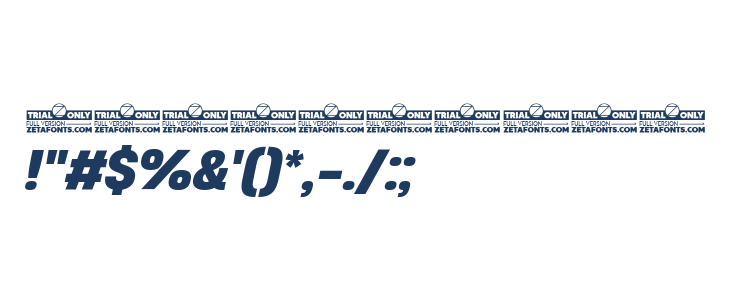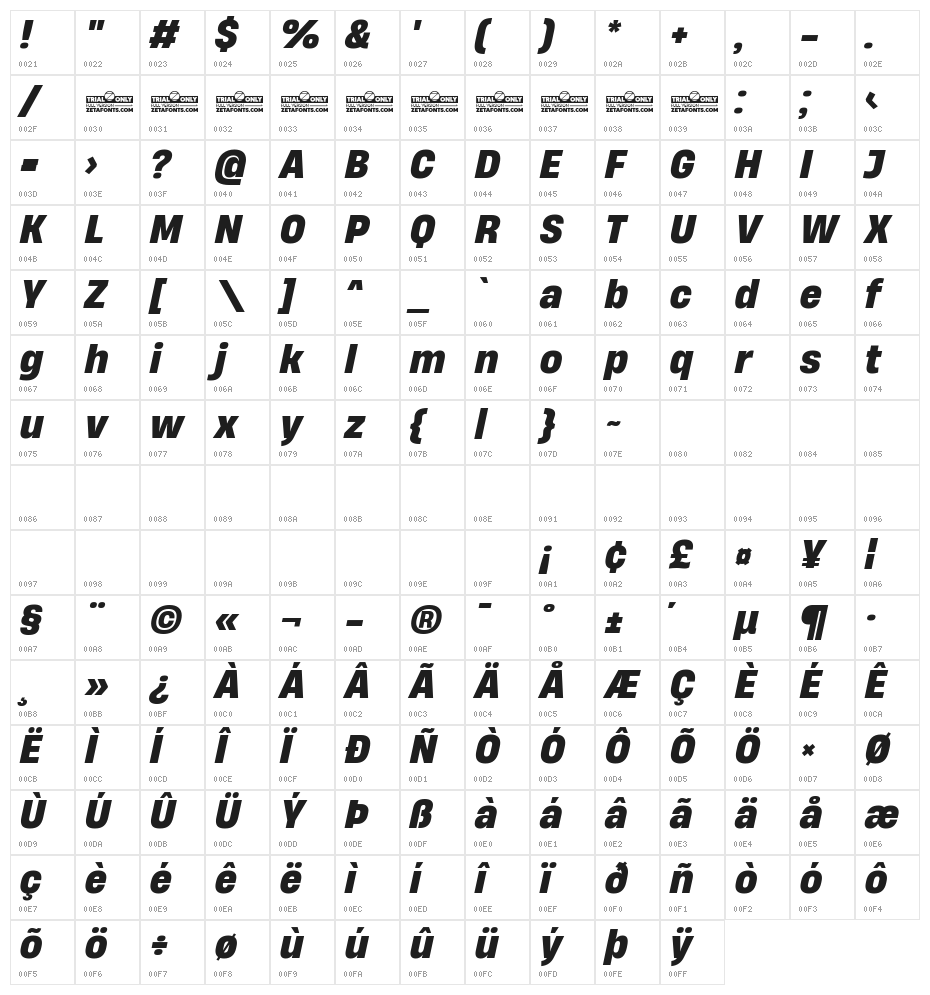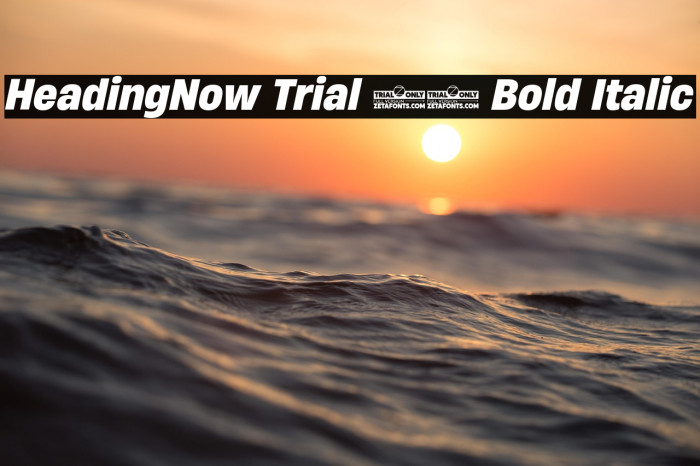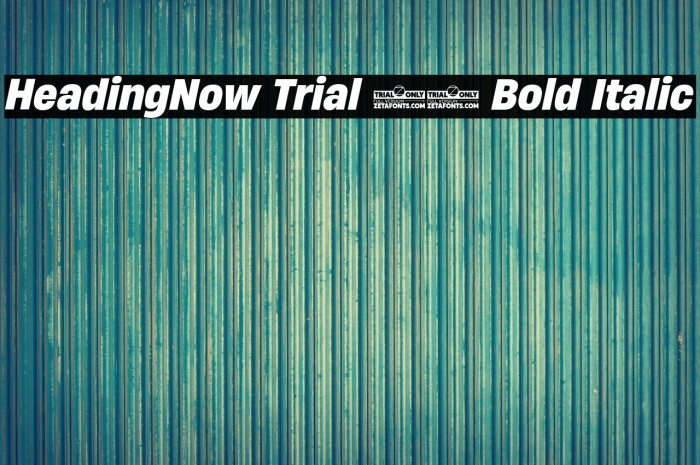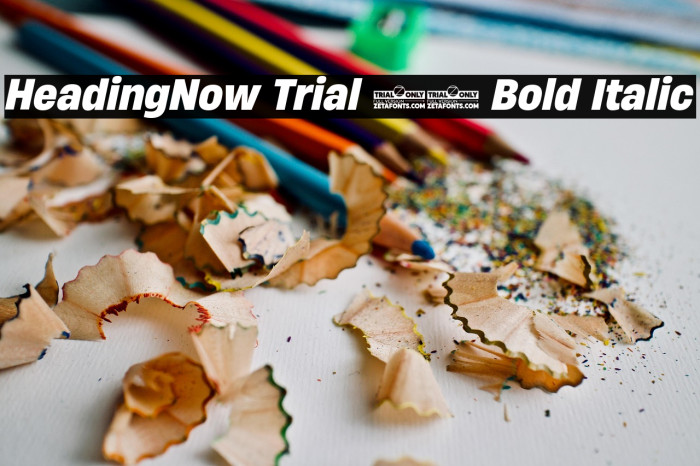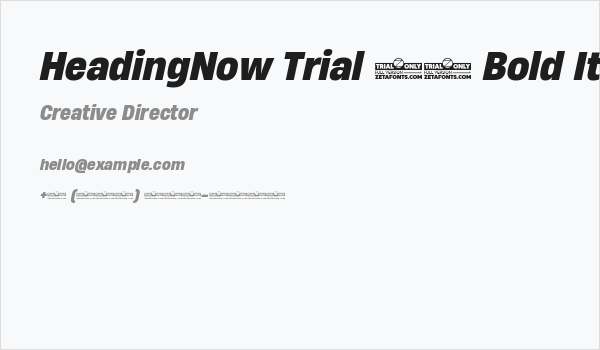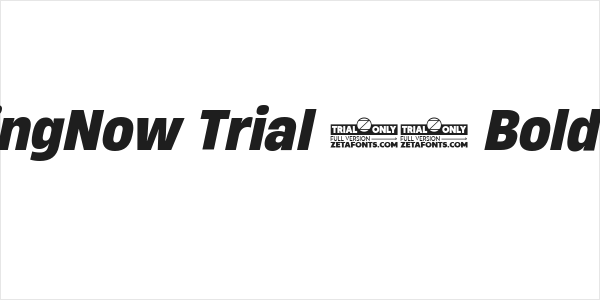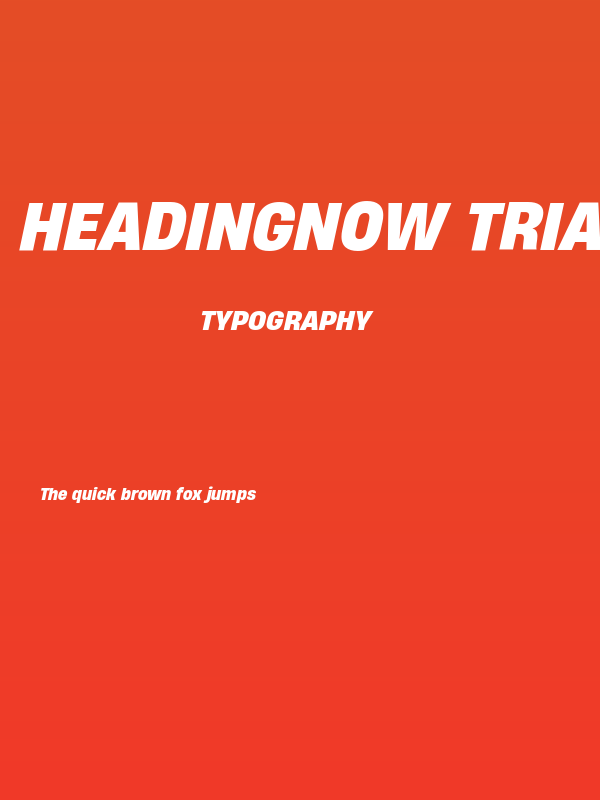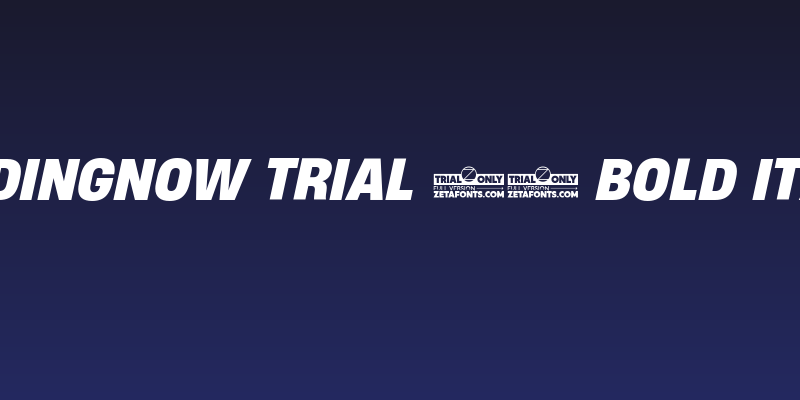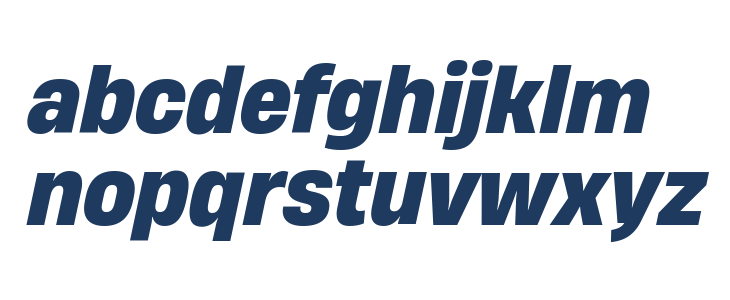
HeadingNow Trial 66 Bold Italic Font
HeadingNow Trial 66 Bold Italic Description
This font exhibits a bold and italicized style, characterized by thick strokes and a forward-leaning posture. The uppercase and lowercase letters maintain a consistent weight, providing a strong visual impact. The characters are well-defined with clean edges, making them highly legible. The numbers and special characters follow the same bold and italicized design, ensuring uniformity across all glyphs. This font's robust appearance makes it suitable for attention-grabbing headlines and titles.